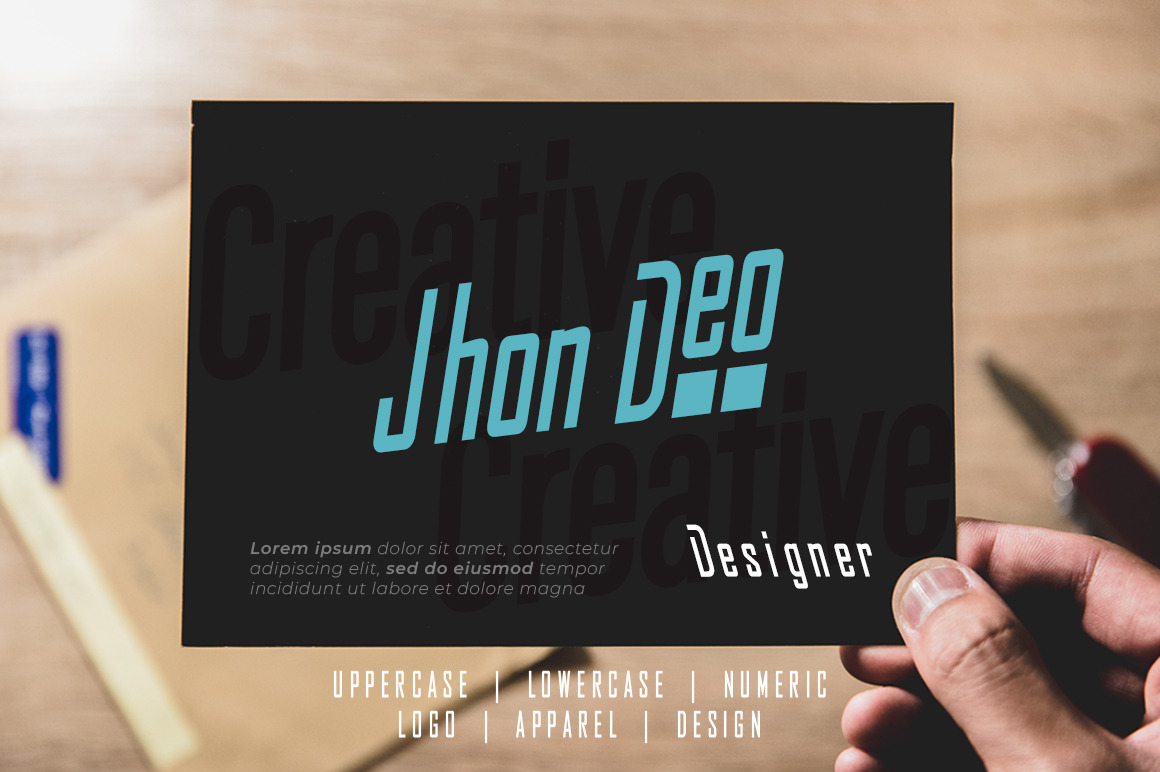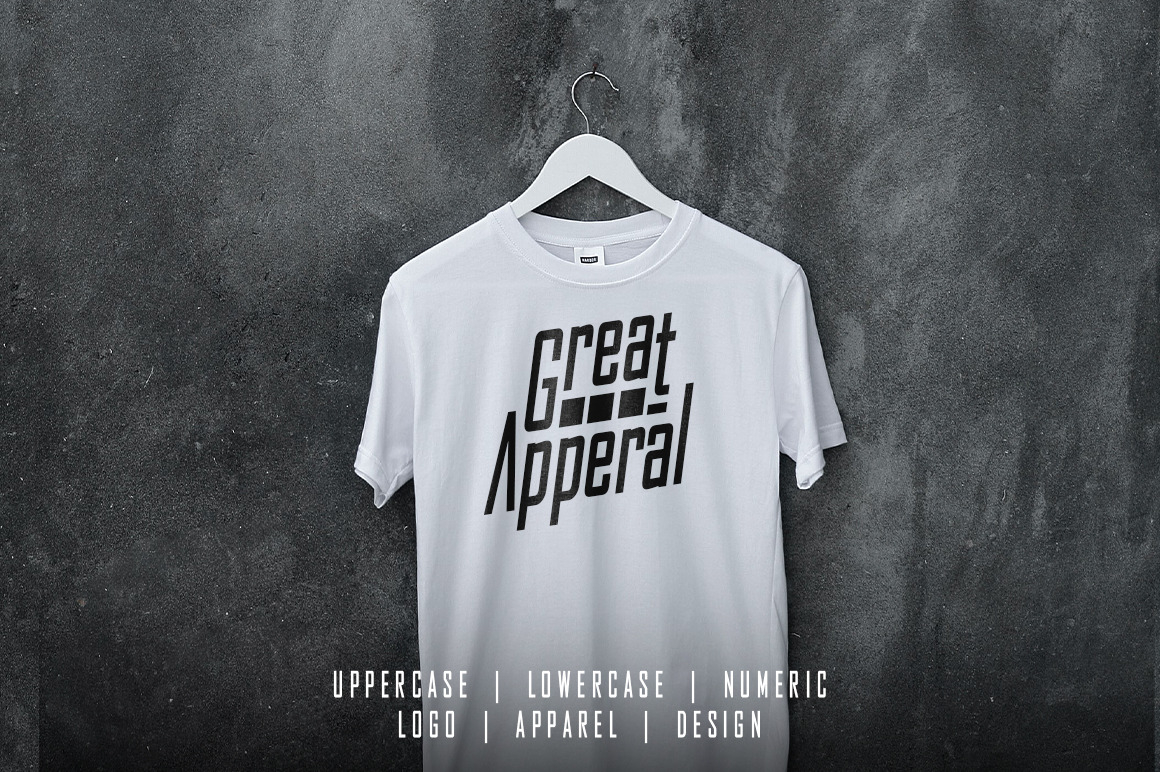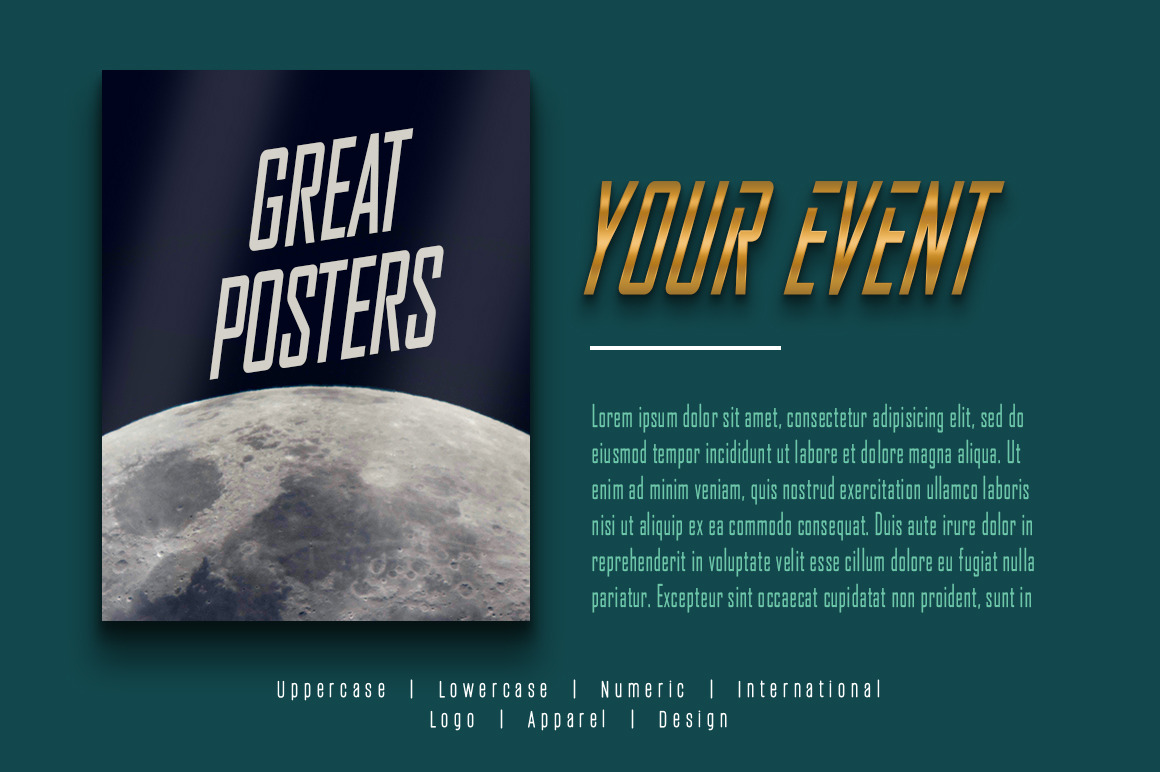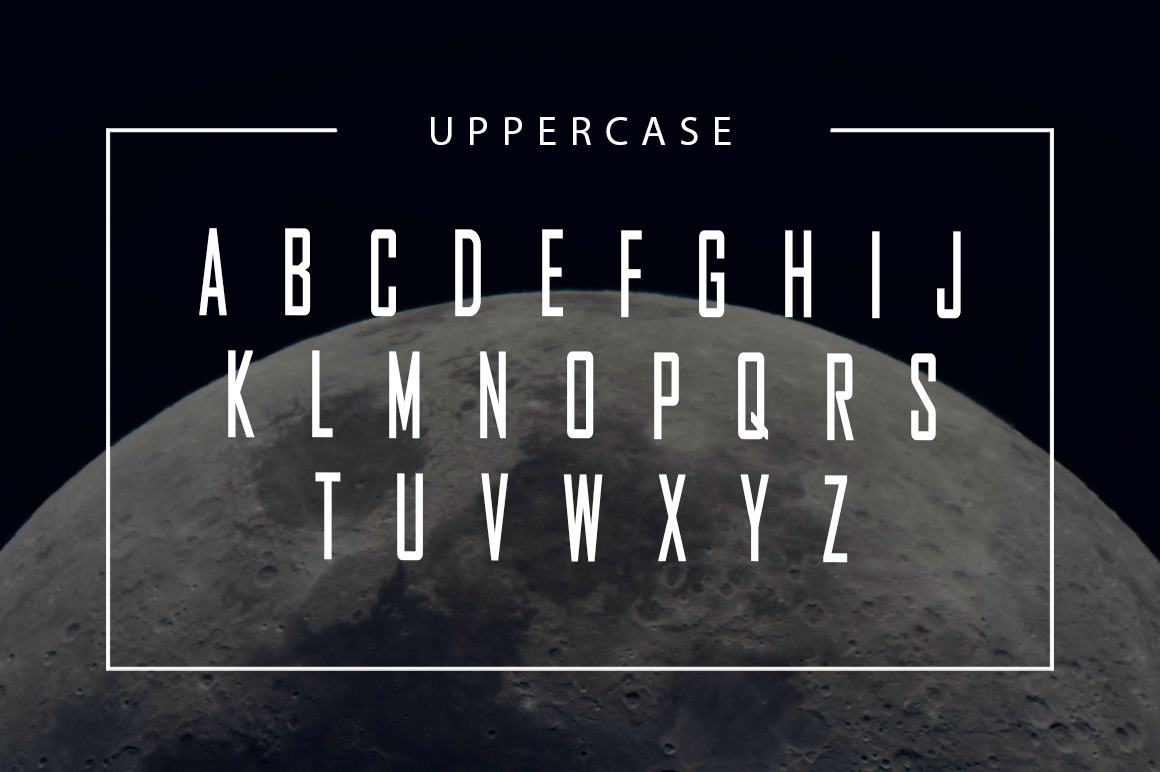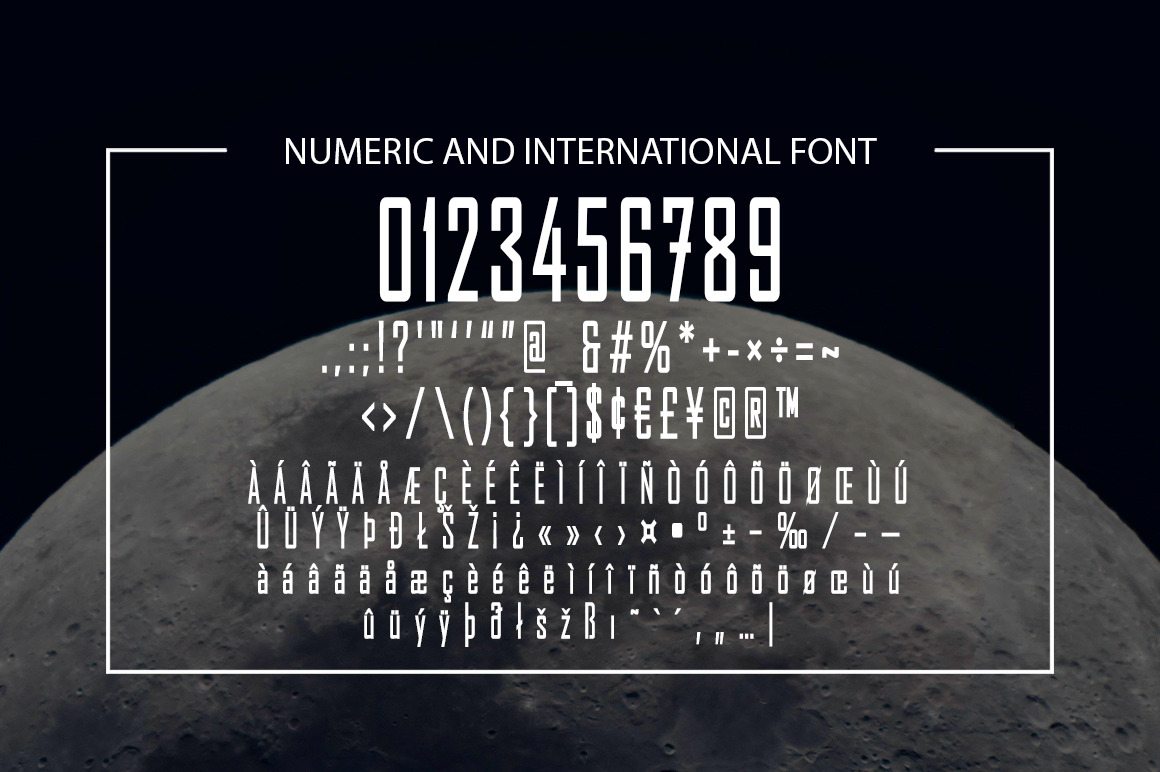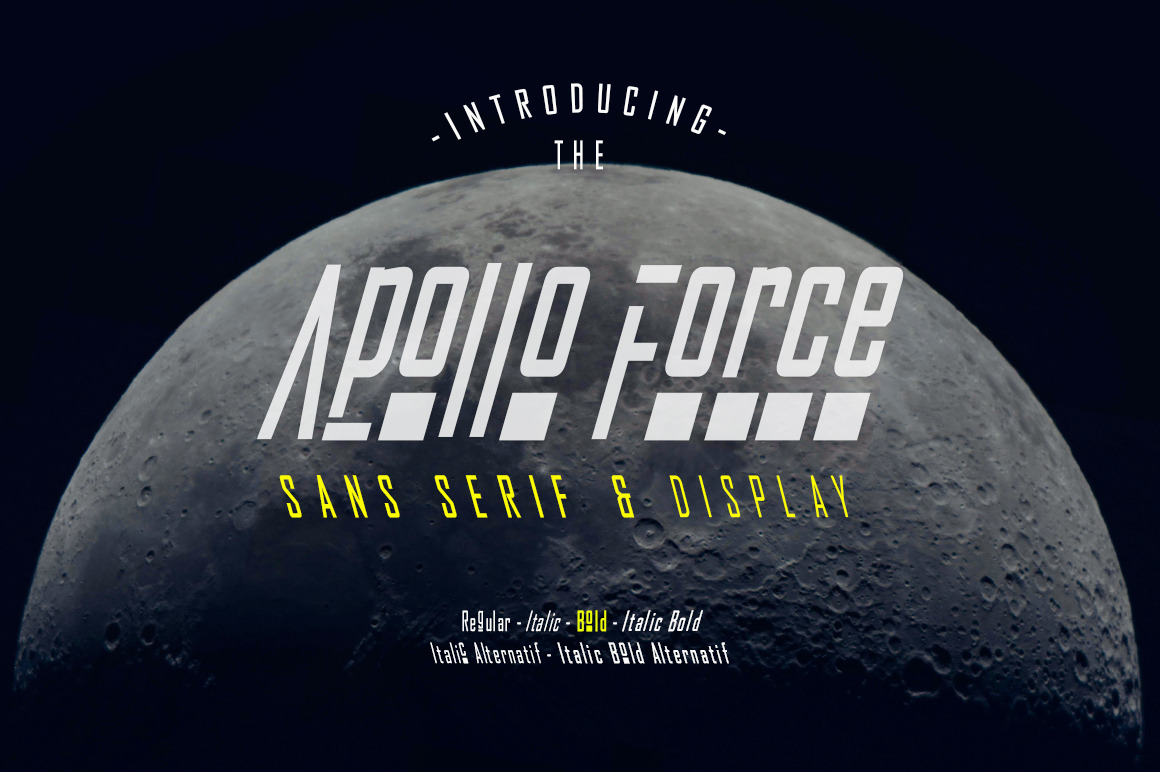
Apollo Force Family Font
Apollo Force Family Font very suitable for poster, for logo, music cover, clothing, and many many cool design projects. Apollo Force Font is uppercase, lowercas and numeric. Alternative typeface. Grab the font today and make sure to stay updated on the shop for new and exclusive fonts.